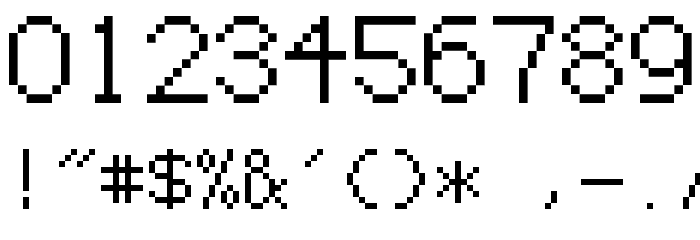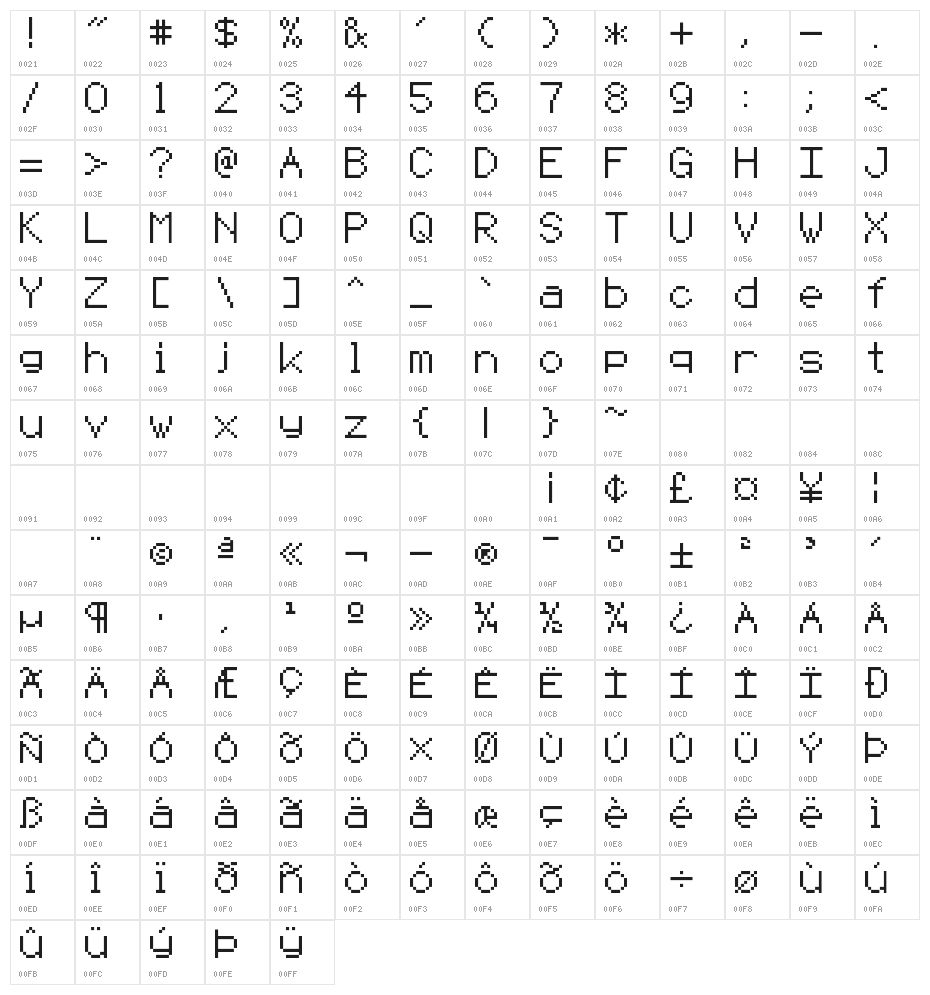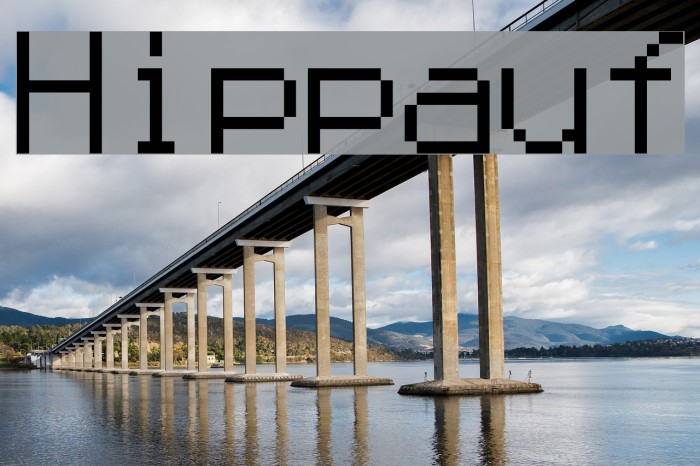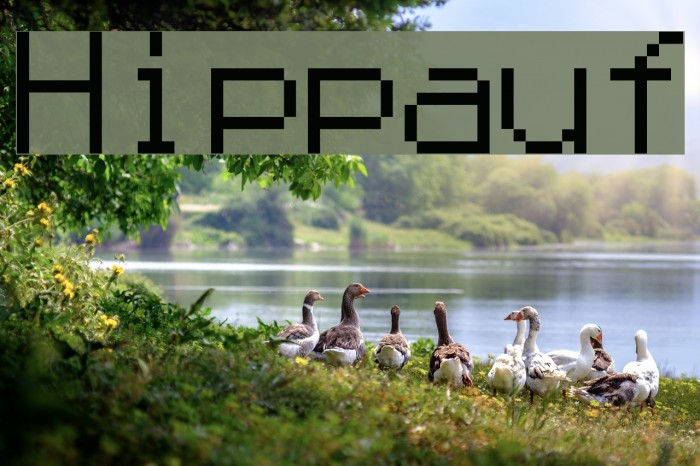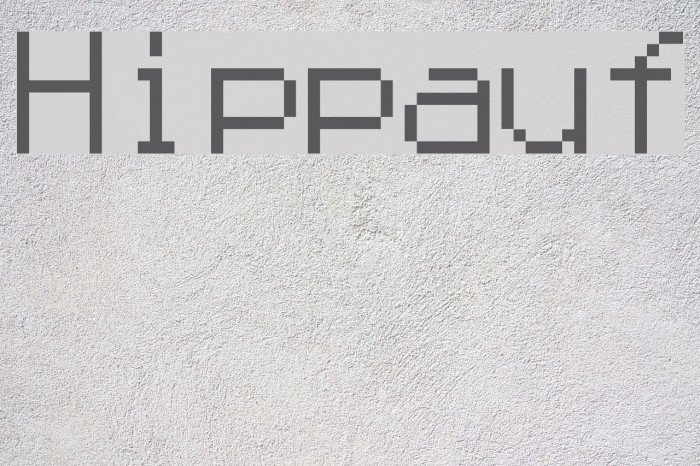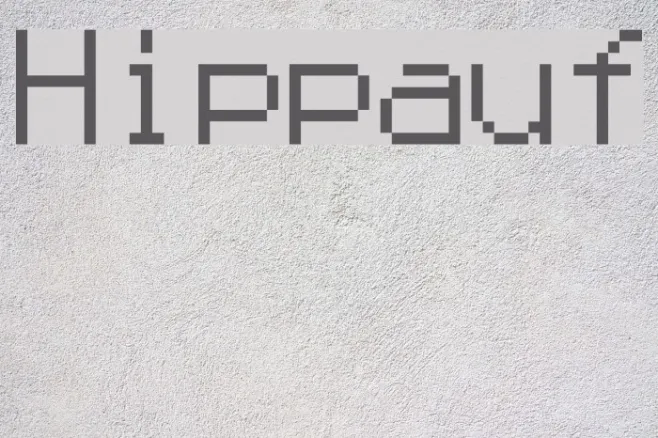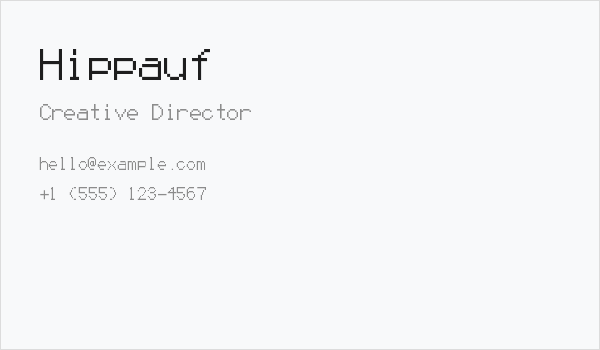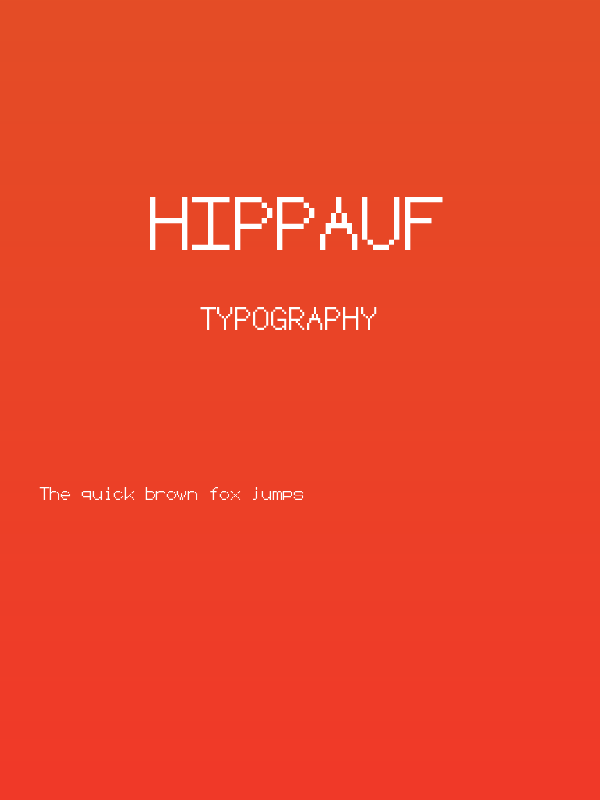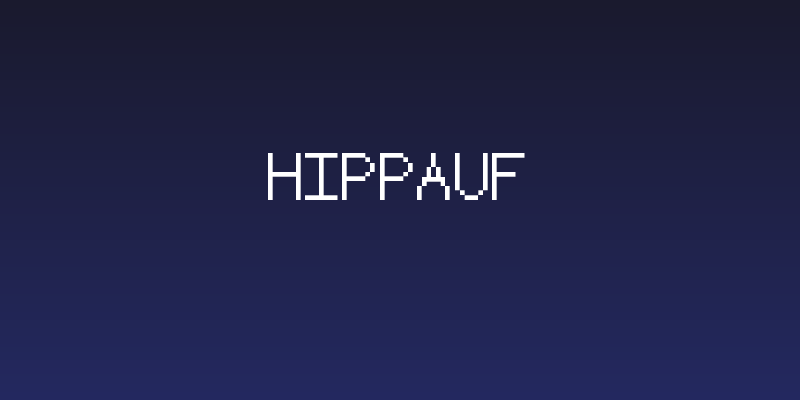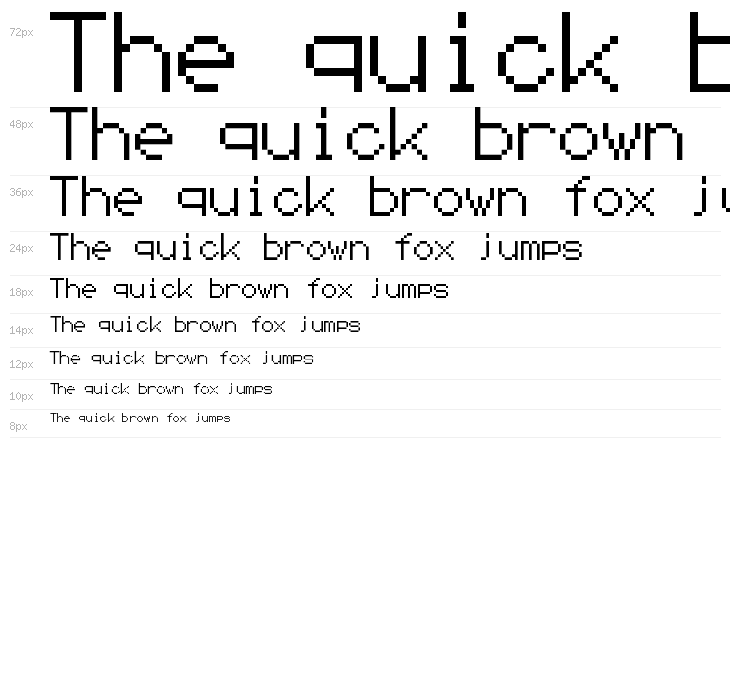
Hippauf Font
Hippauf Description
This font features a pixelated, grid-like structure that is reminiscent of early digital displays and retro video games. Each character is composed of small, square blocks, giving it a distinctly digital and mechanical appearance. The uppercase and lowercase letters maintain a consistent height, contributing to a uniform and orderly look. The numerals and special characters follow the same pixelated style, ensuring cohesion across all glyphs. This font's design is straightforward and functional, making it ideal for projects that require a nostalgic or tech-inspired aesthetic.
| Use Case | Logos, Headlines, Digital Art |
| Proposed Projects | Ideal for retro video game designs, tech-themed posters, digital art projects, and any creative work that seeks to evoke nostalgia for early computer graphics. |